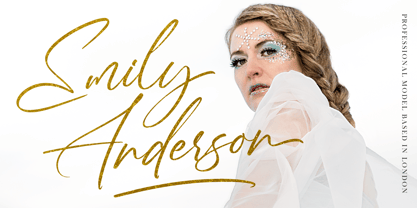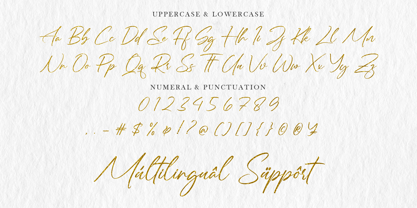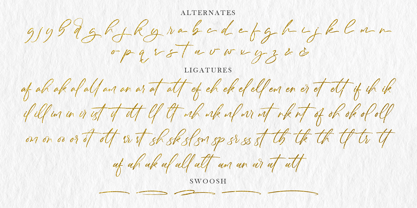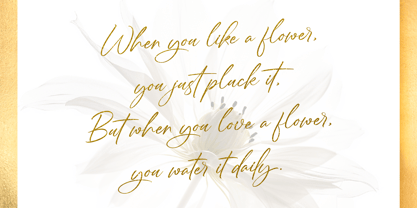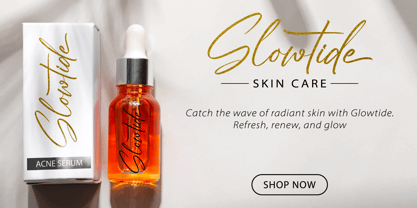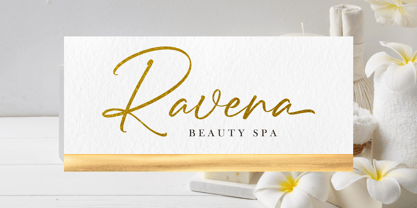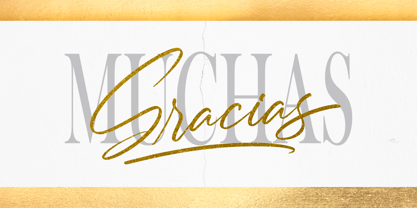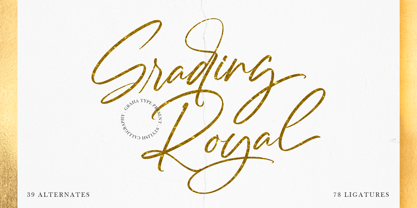
Grading Royal
by Graha Type
The Grading Royal Font Family was designed by Toni Nugraha and published by Graha Type. Grading Royal contains 1 styles. More about this family
Grading Royal is a stylish calligraphy font with an elegant, luxurious feel, making it perfect for logotypes, branding, wedding invitations, and other prestigious designs. Its graceful curves and dramatic letterforms combine traditional charm with modern sophistication, offering a refined yet legible appearance. Ideal for special events like weddings or high-end brand launches, this versatile font adds a sophisticated touch to logos, brand identities, and invitations, bringing a sense of prestige to any design
Alternates and Ligatures
Multilingual Support
Designers: Toni Nugraha
Foundry: Graha Type